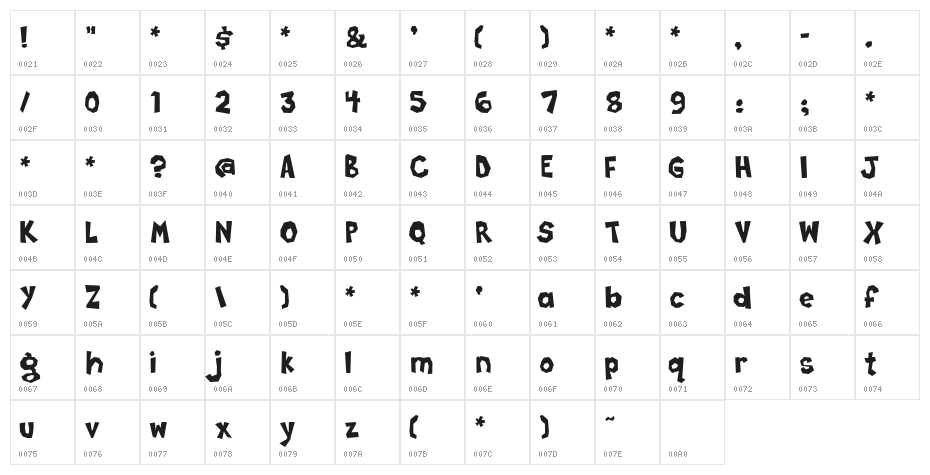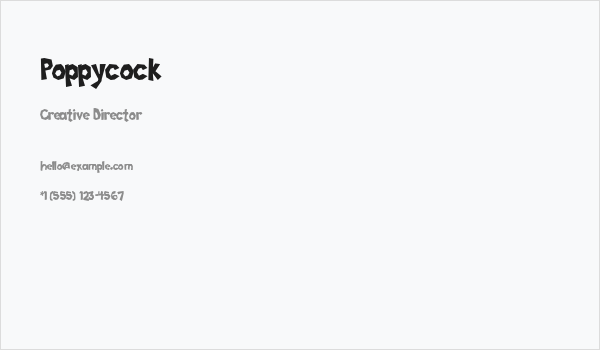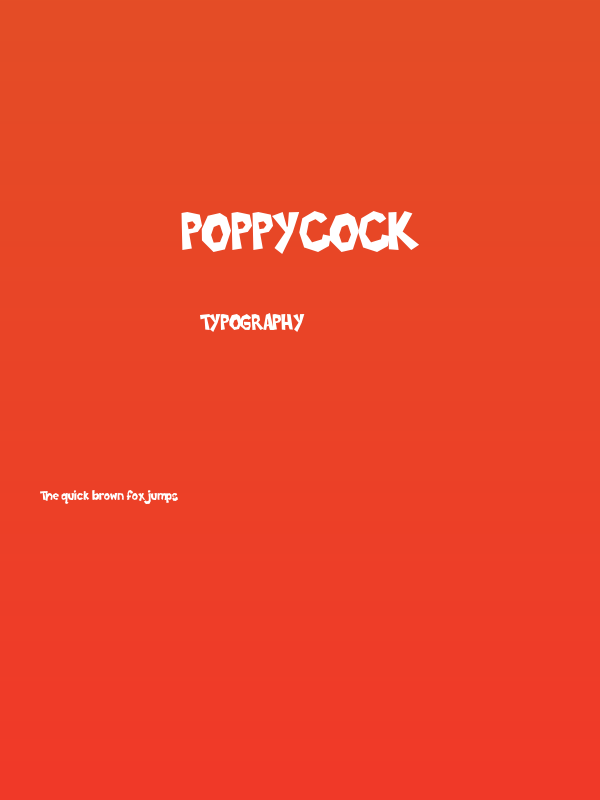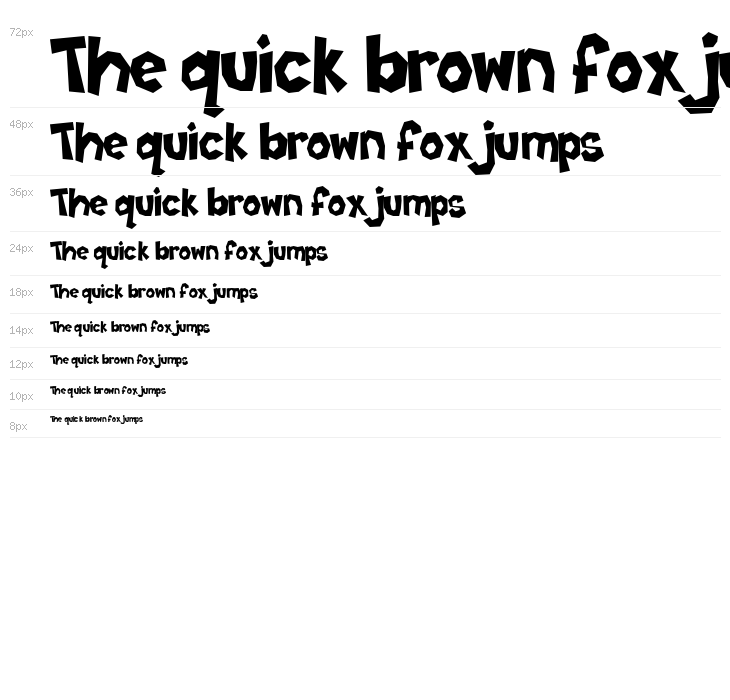
Poppycock Font
Poppycock Description
This font features a bold, jagged style with an irregular, hand-cut appearance. The characters are angular and dynamic, giving a sense of movement and energy. The uppercase and lowercase letters maintain a consistent style, with sharp edges and varying line thicknesses that create a unique, eye-catching look. Numbers and special characters follow the same design principles, ensuring a cohesive appearance across all glyphs. This font is ideal for projects that require a bold, unconventional aesthetic.
| Use Case | Headlines, Posters, Album covers |
| Proposed Projects | Perfect for posters, album covers, or any project needing a bold, unconventional aesthetic. |